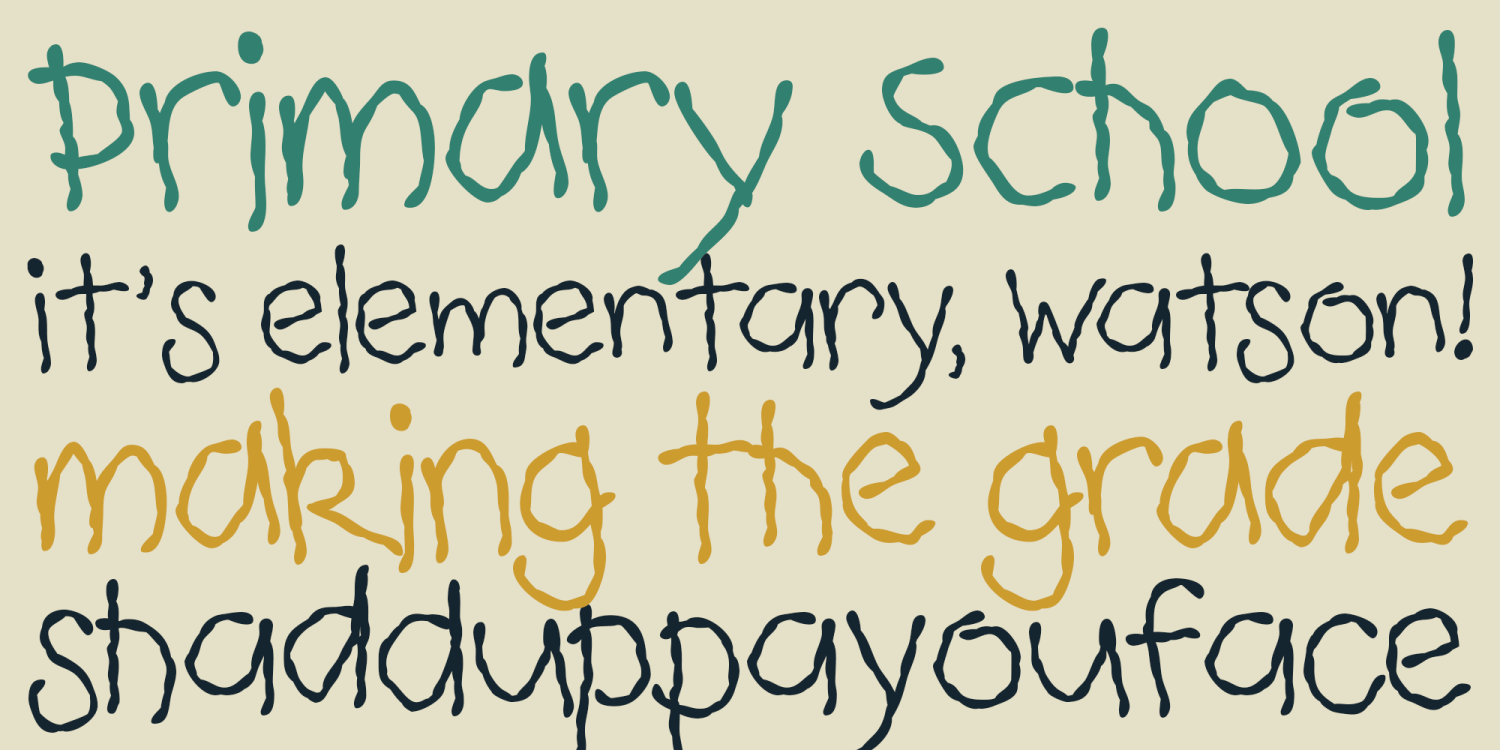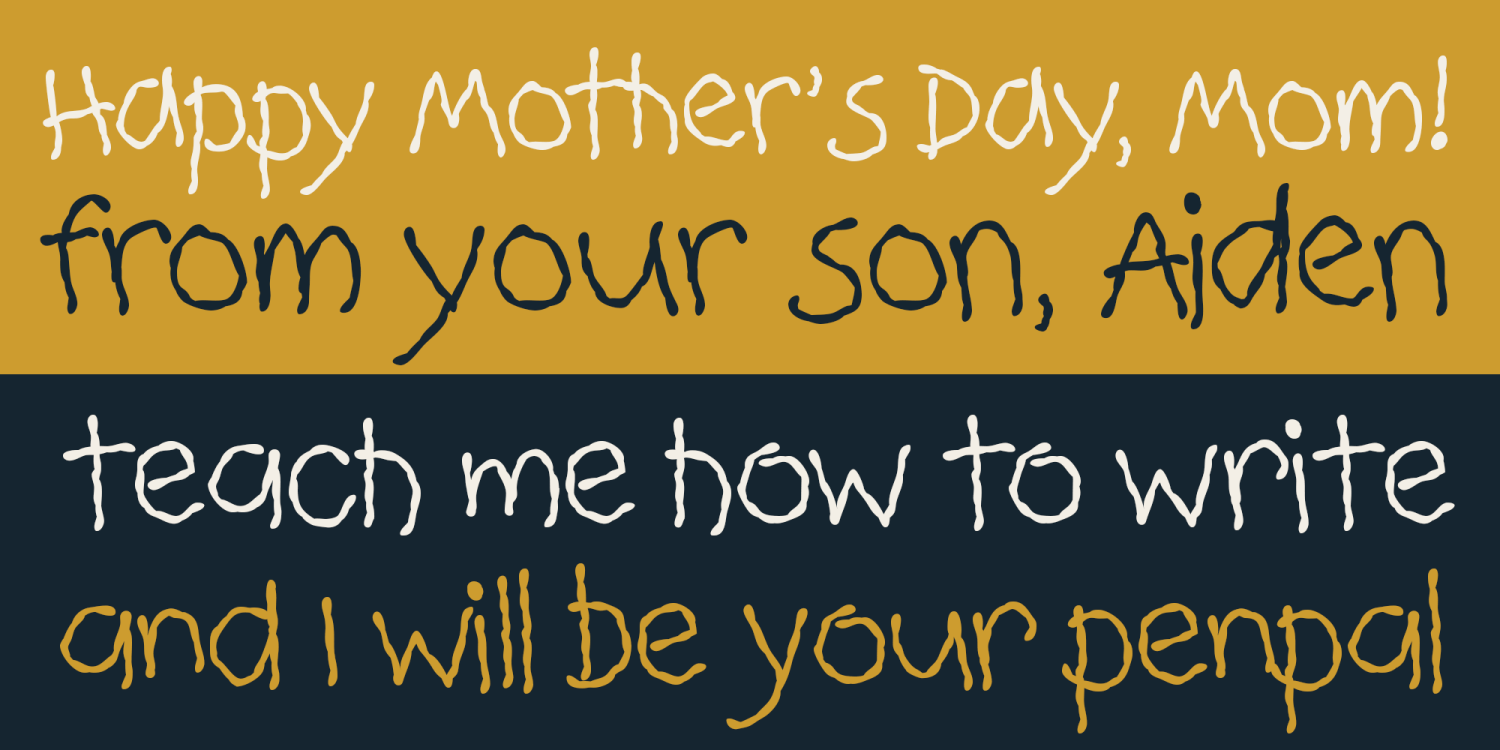
What do kids do that most of us don't? Think outside the box, color outside the lines, and break all the rules. The same goes for my son Aiden's handwriting. Urly Lurnin strives to faithfully mimic my son's handwriting for you to use, loaded…